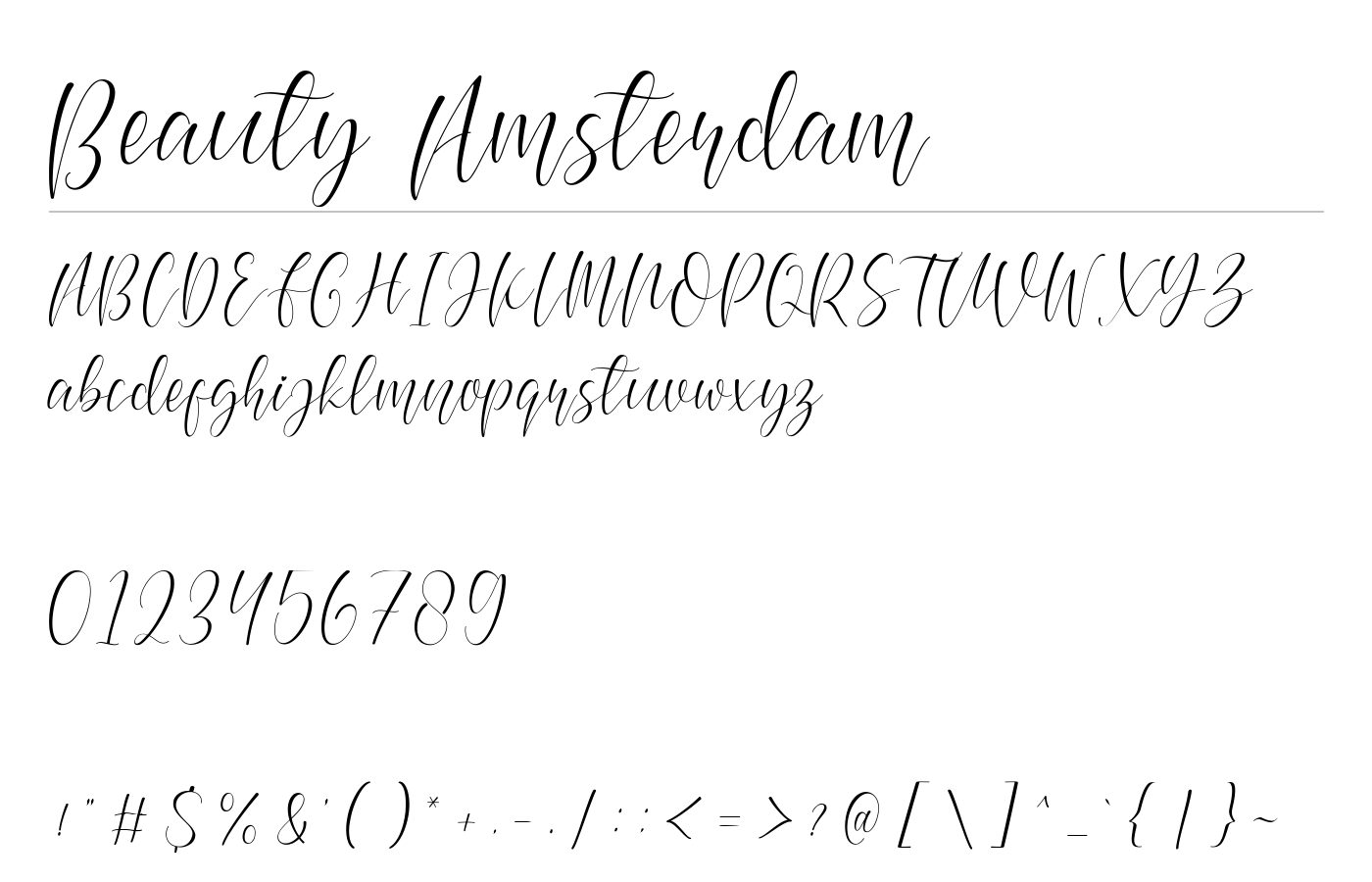
Beauty Amsterdam is a delicate and elegant script font characterized by its thin, flowing strokes and graceful, handwritten style. Its tall, slender letterforms with subtle contrast create a refined and sophisticated look, making it ideal for luxury branding, invitations, and fashion-related designs that seek a personal yet stylish touch. The font’s airy spacing and smooth curves convey a sense of modern femininity and charm, perfect for upscale and artistic projects.
Beauty Amsterdam Font
About Beauty Amsterdam Font
| Font family | Beauty Amsterdam Font |